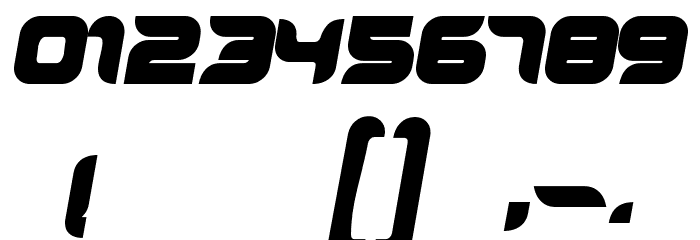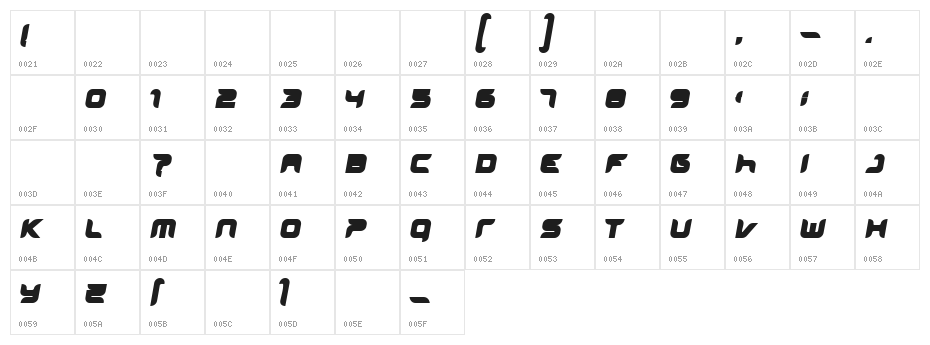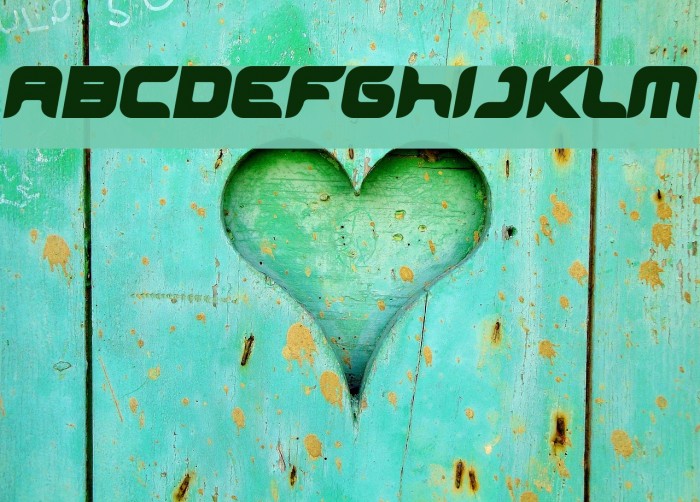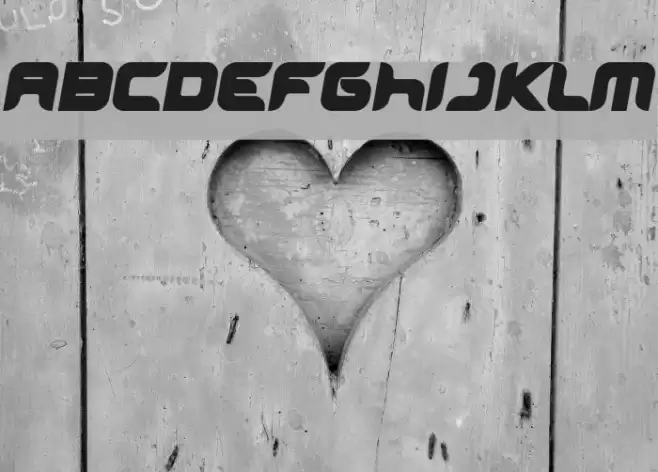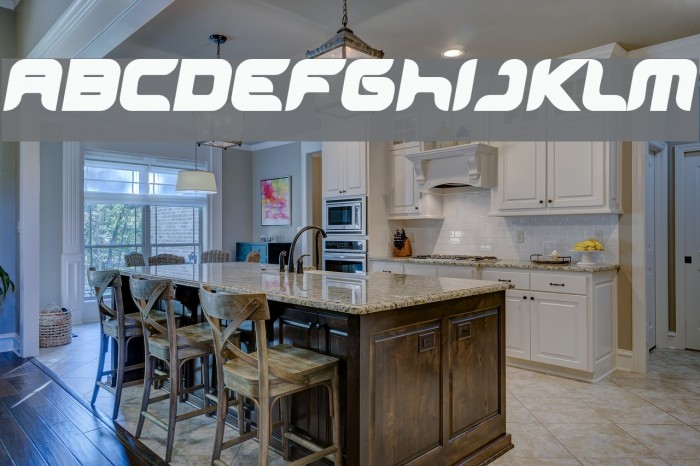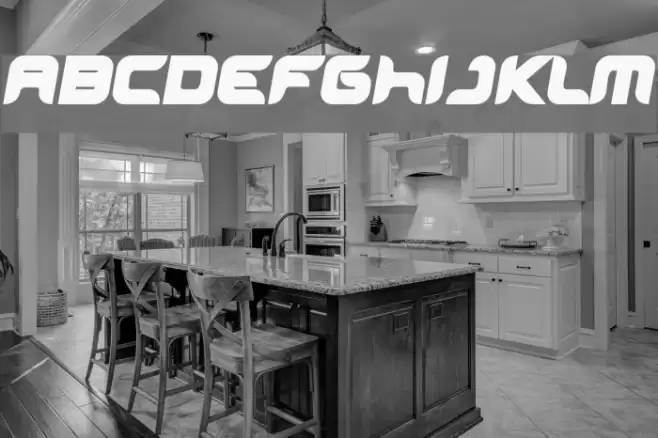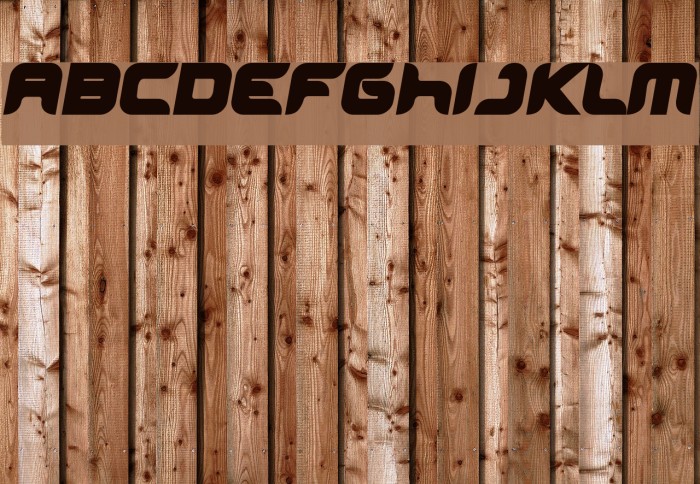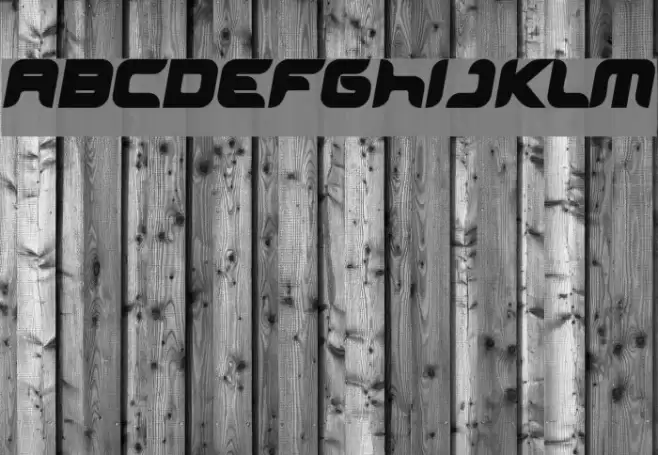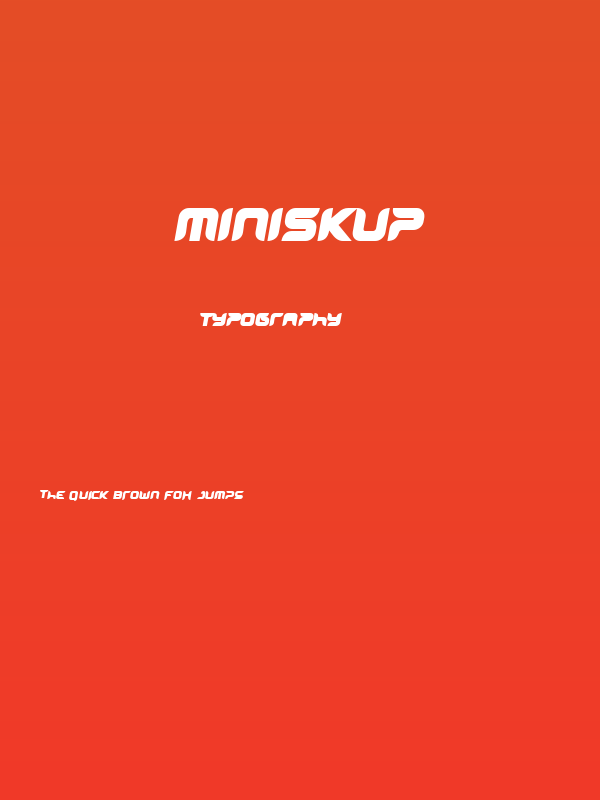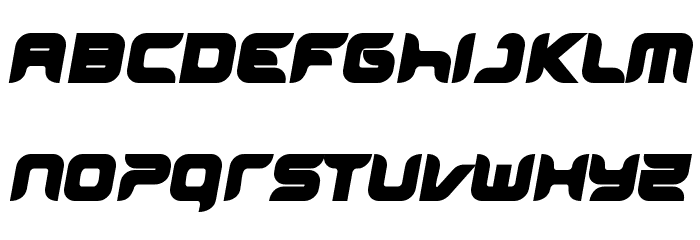
miniskup Font
miniskup Description
This font features a bold, futuristic design with smooth, rounded edges and a slightly italicized slant. The characters are wide and have a strong presence, making them ideal for attention-grabbing headlines or logos. The uniformity in stroke thickness gives it a sleek and modern appearance, while the rounded terminals add a touch of softness to the overall design. The numerals and special characters maintain the same stylistic elements, ensuring consistency across all text elements.
| Proposed Projects | Ideal for technology branding, sci-fi movie posters, video game titles, and modern advertising campaigns. |